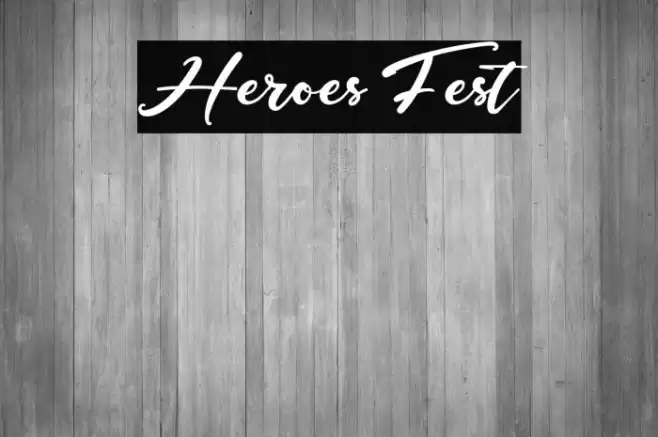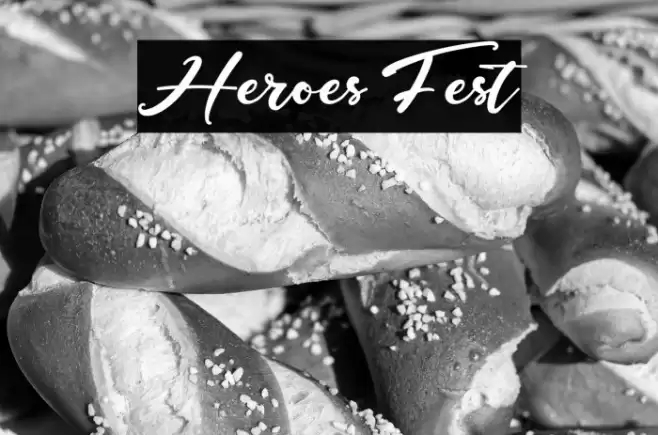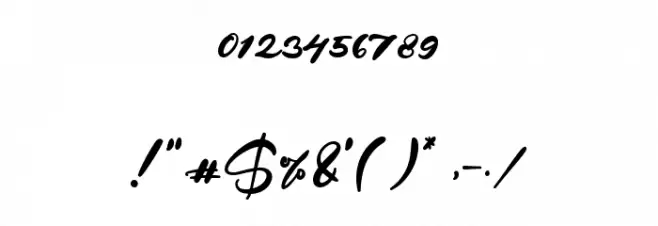
Heroes Fest Font
Heroes Fest Description
This font features a flowing, cursive style that exudes elegance and sophistication. The characters are connected, creating a seamless and fluid appearance. The uppercase letters are bold and sweeping, while the lowercase letters maintain a consistent, graceful curve. The numerals and special characters complement the script style, maintaining the same fluidity and elegance. This font is perfect for projects that require a touch of class and refinement, such as wedding invitations, formal event programs, or luxury brand logos.
A flowing, elegant cursive font with seamless character connections from Regular fonts.
- Proposed Projects: Ideal for wedding invitations, luxury branding, and formal event materials.
- Overall Style: Elegant
- Use Case: Logos, Invitations, Branding